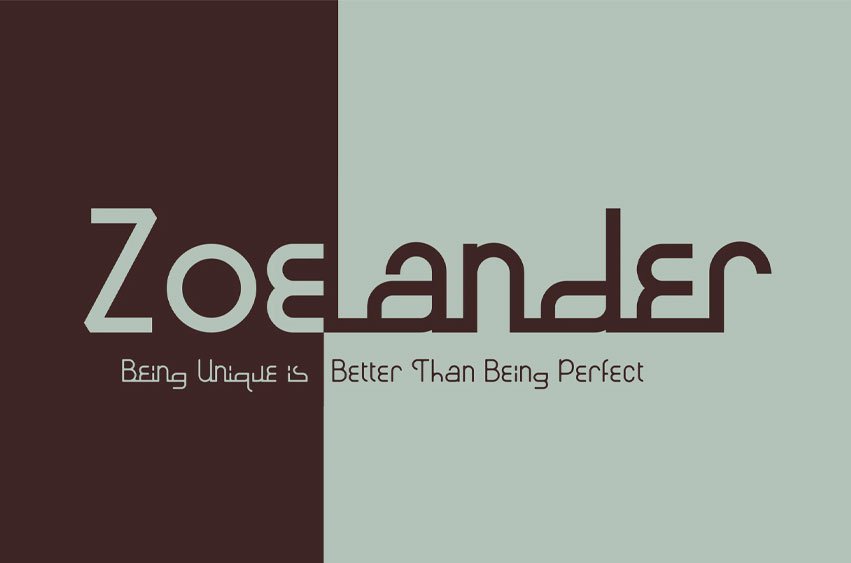
Zoelander Font is an experimental geometric font. The distinctive feature of this font is having an irregular x-height. Of course this doesn’t look normal, but if you are looking for something unique and looks different, Zoelander can be an alternative to making an attractive typography.
Zoelander comes in two versions, Zoelander Regular and Zoelander TF. Each has a bold and rounded style. Zoelander Regular is a sans serif font with irregular x-height (but if you want the same x-height size, the stylistic alternates feature allows you to do it). While Zoelander TF is the development of a regular version where each letter is connected in a line at the baseline. Some of the other opentype features make it easier for you to explore more interesting typographic designs.